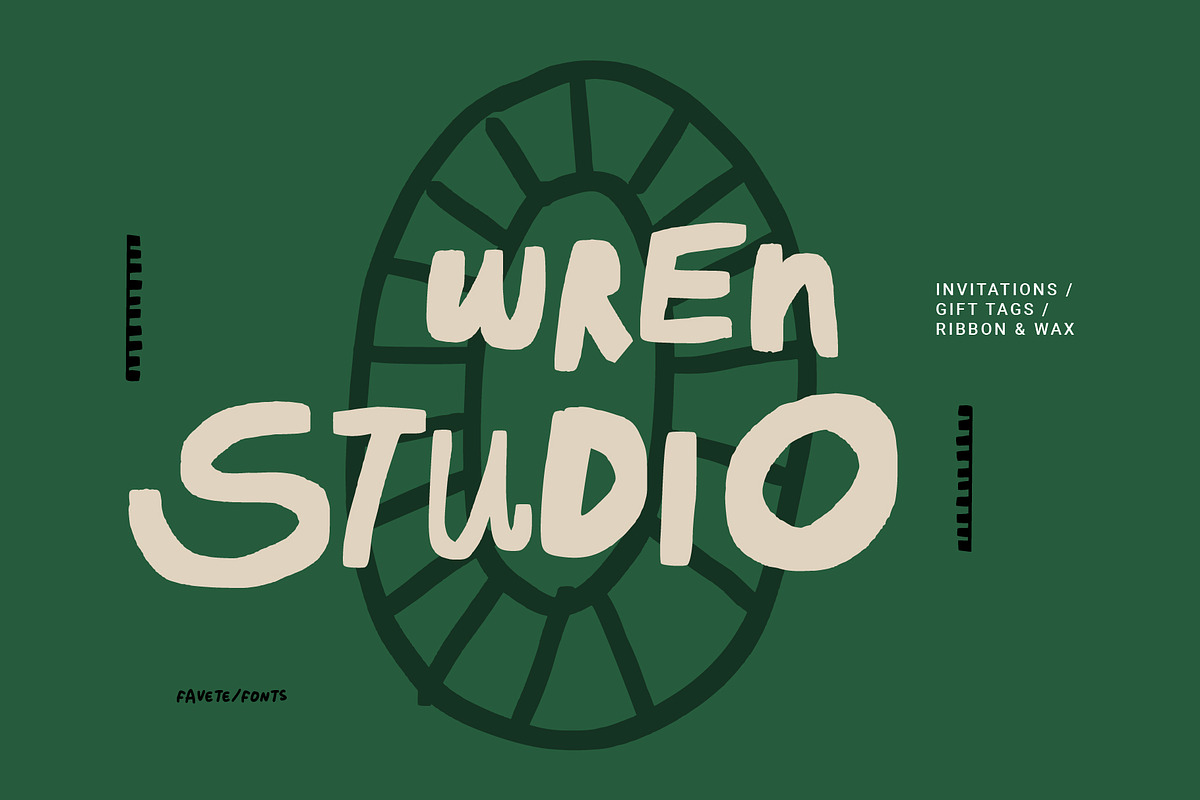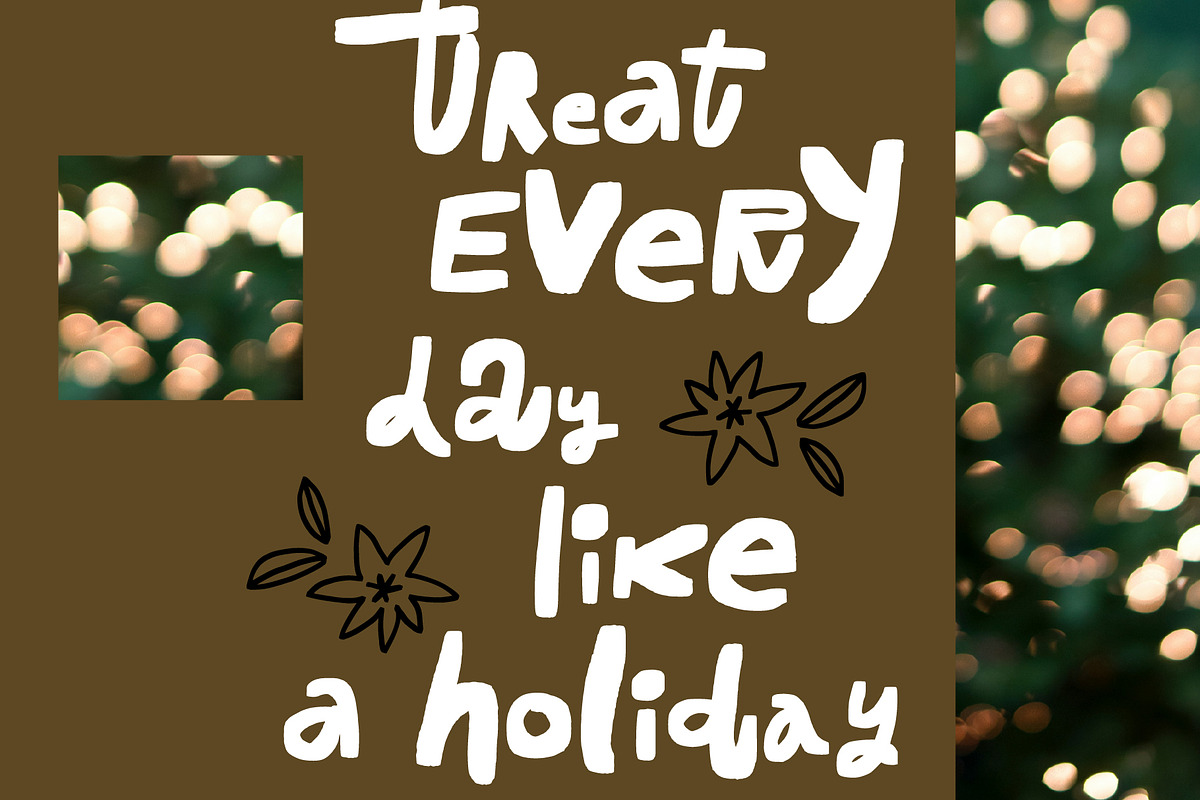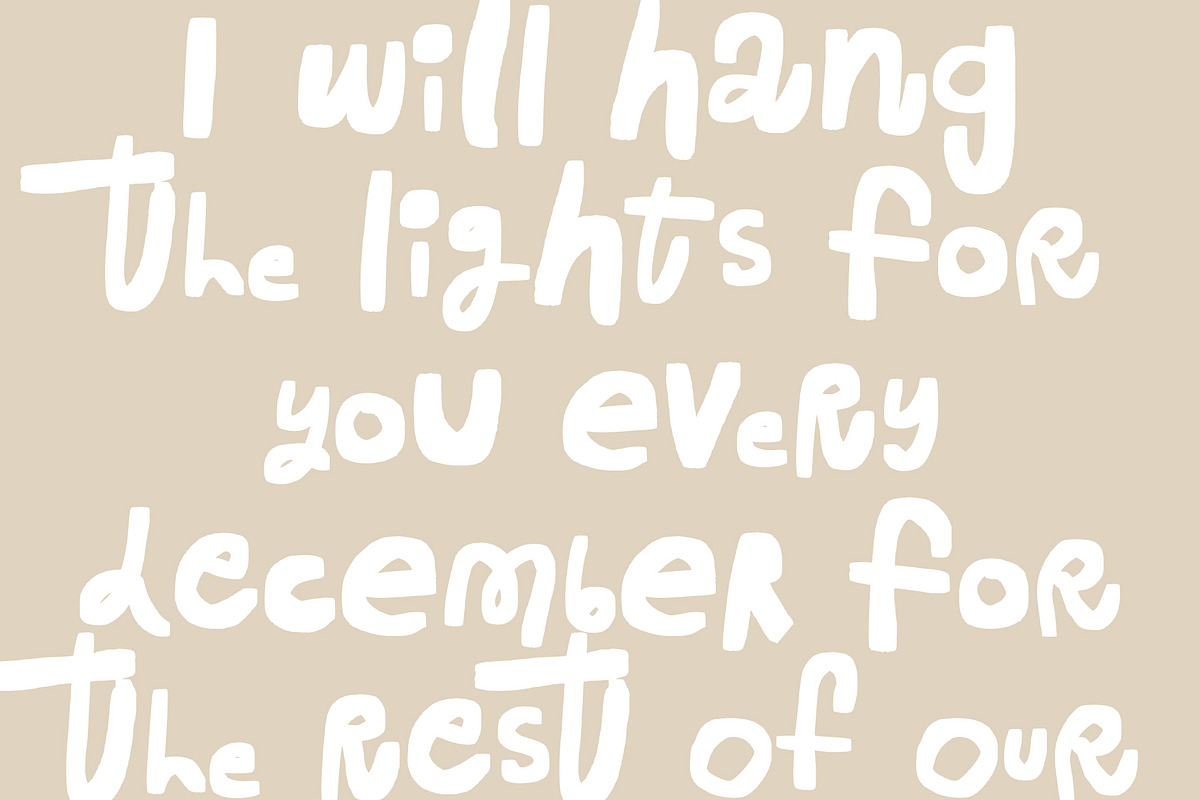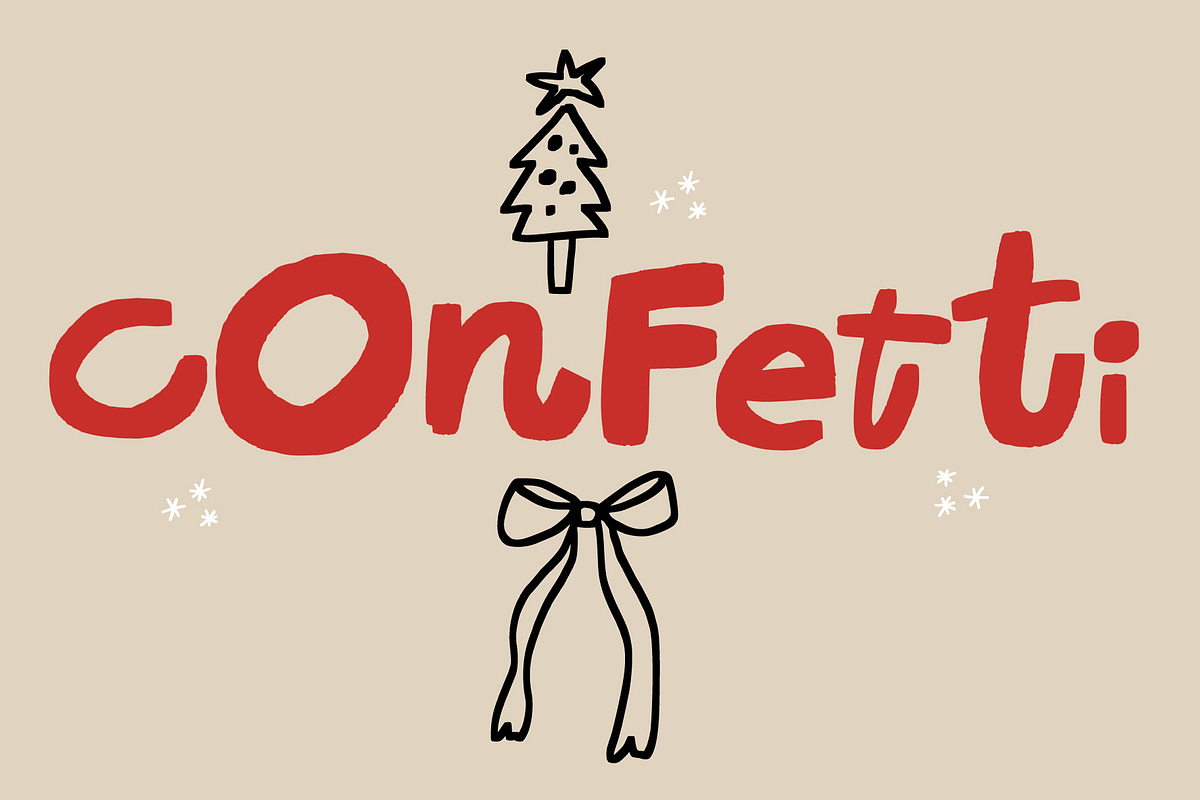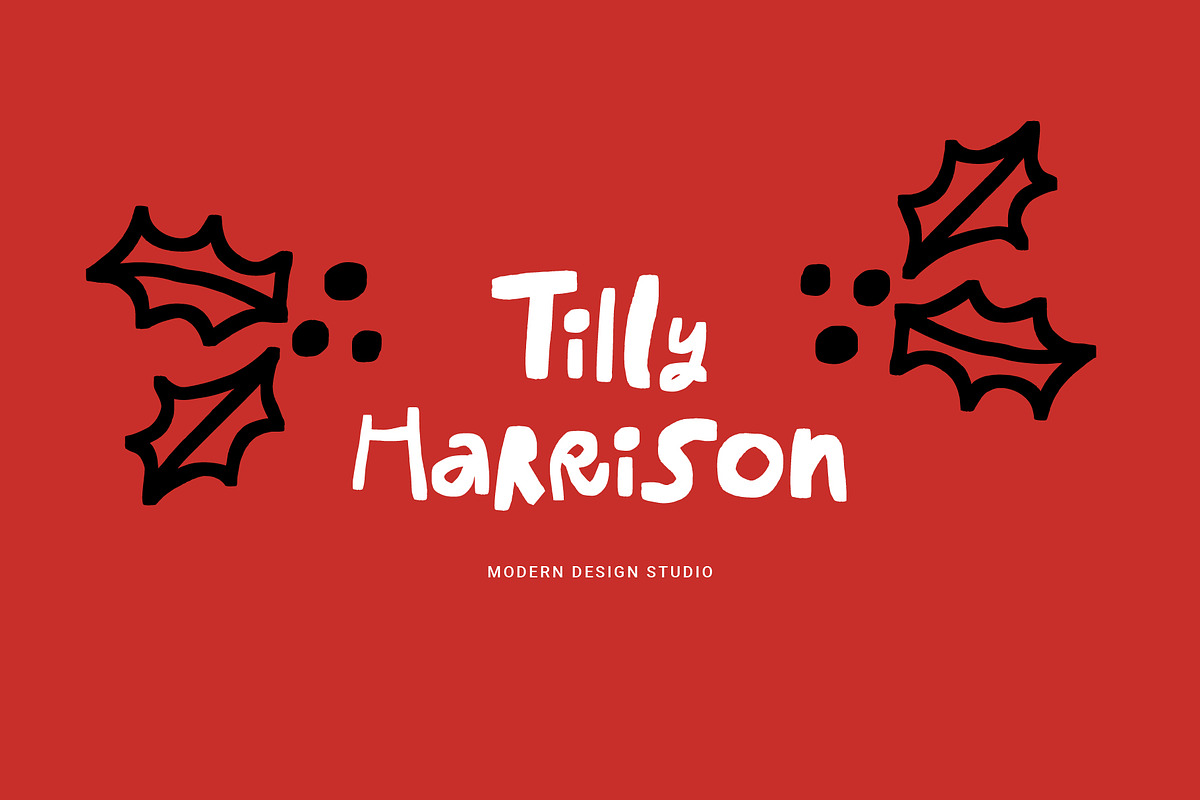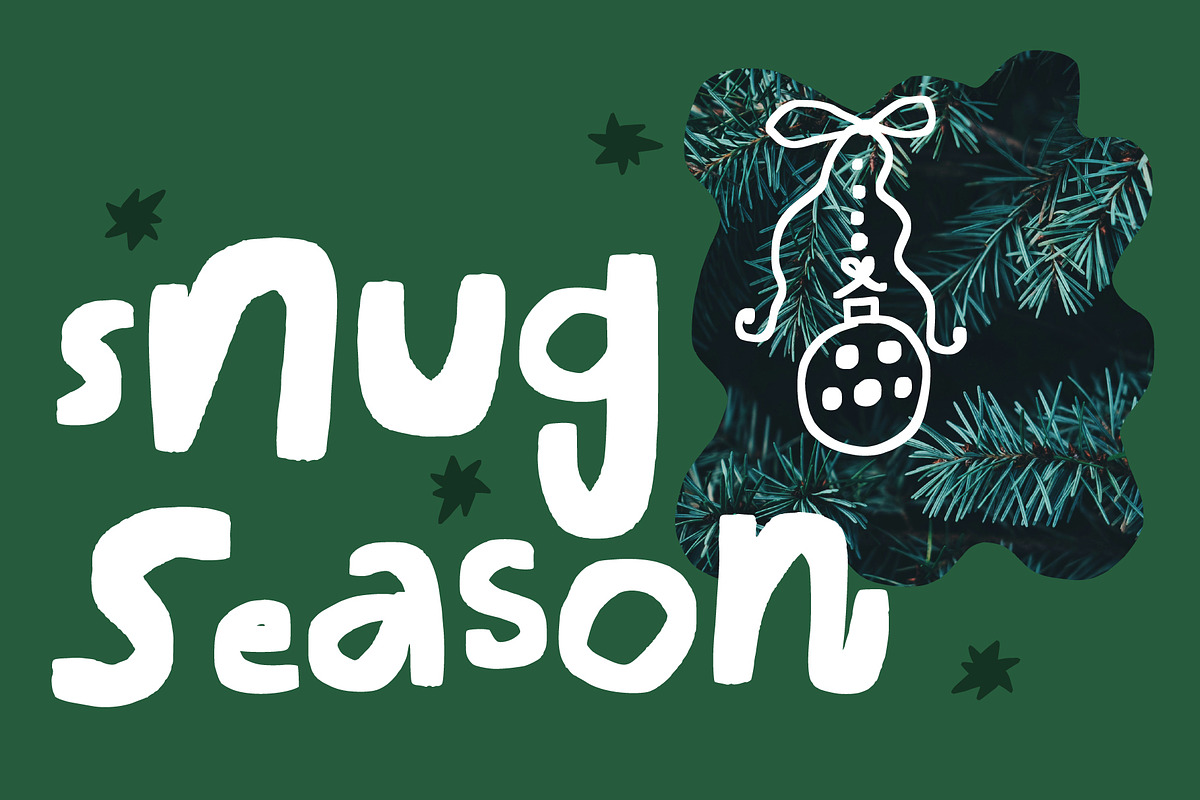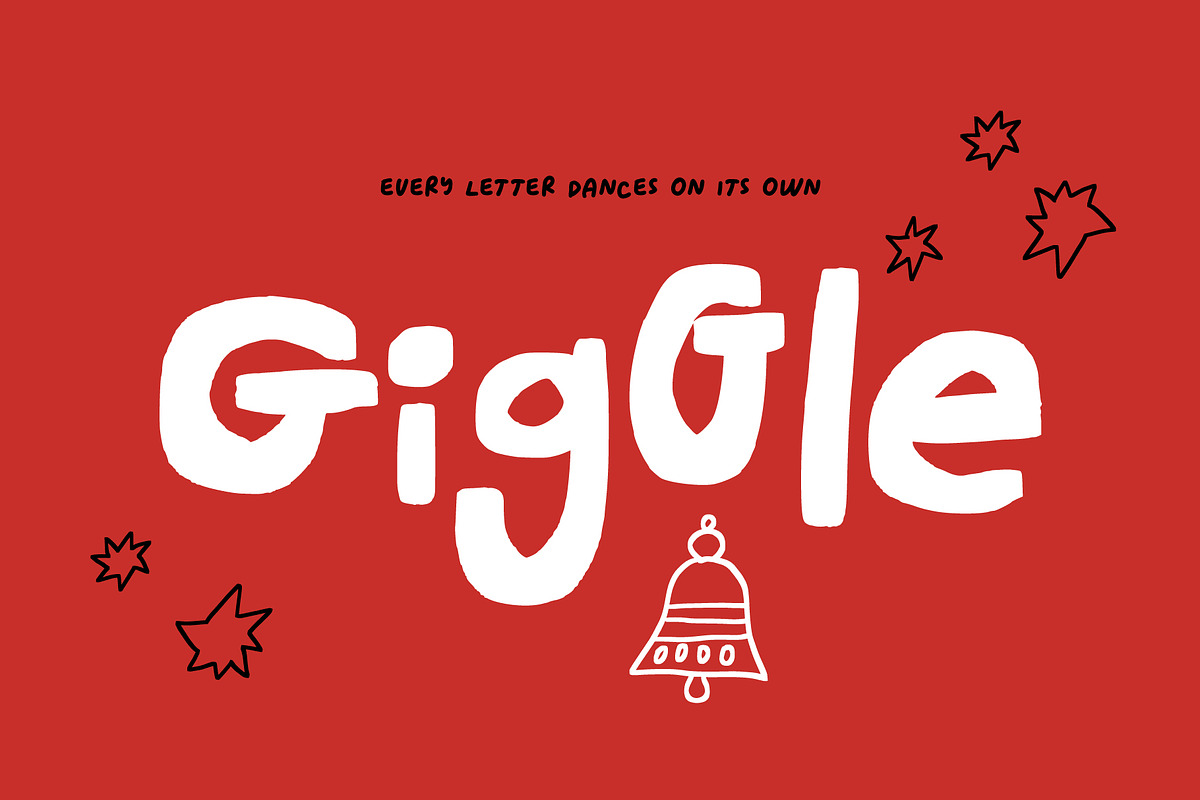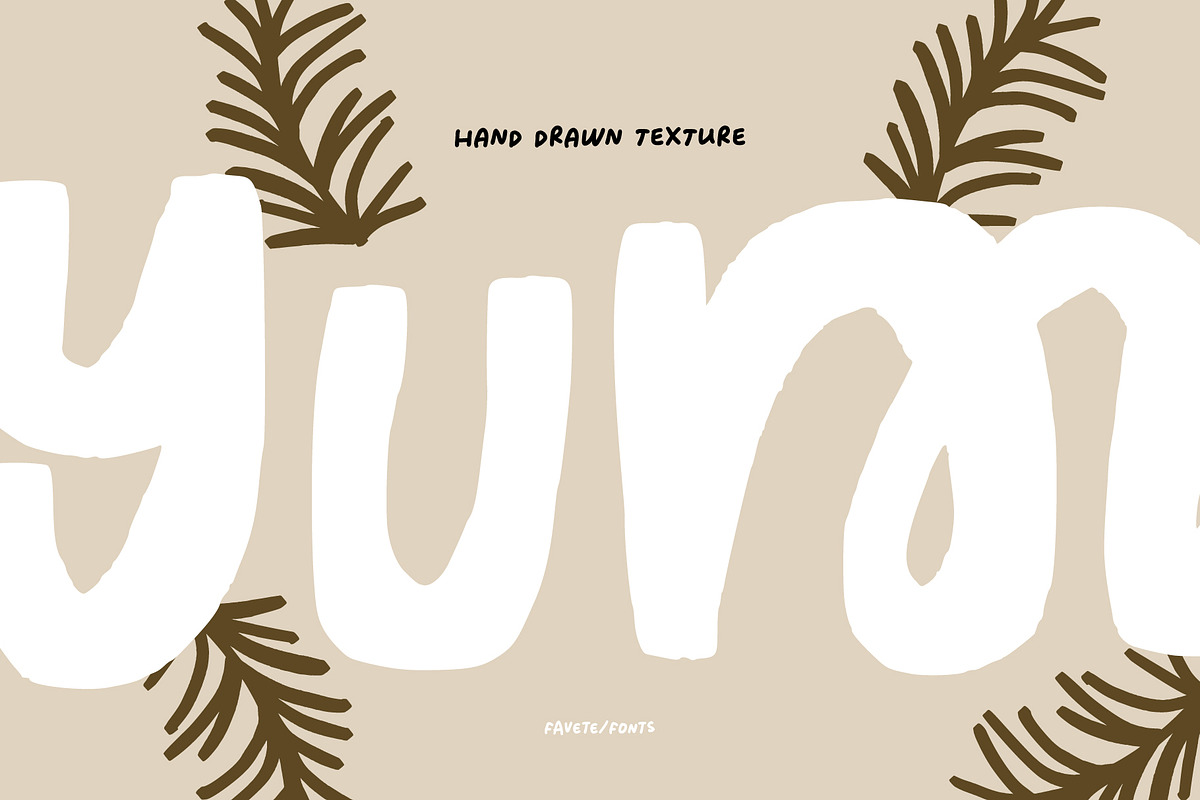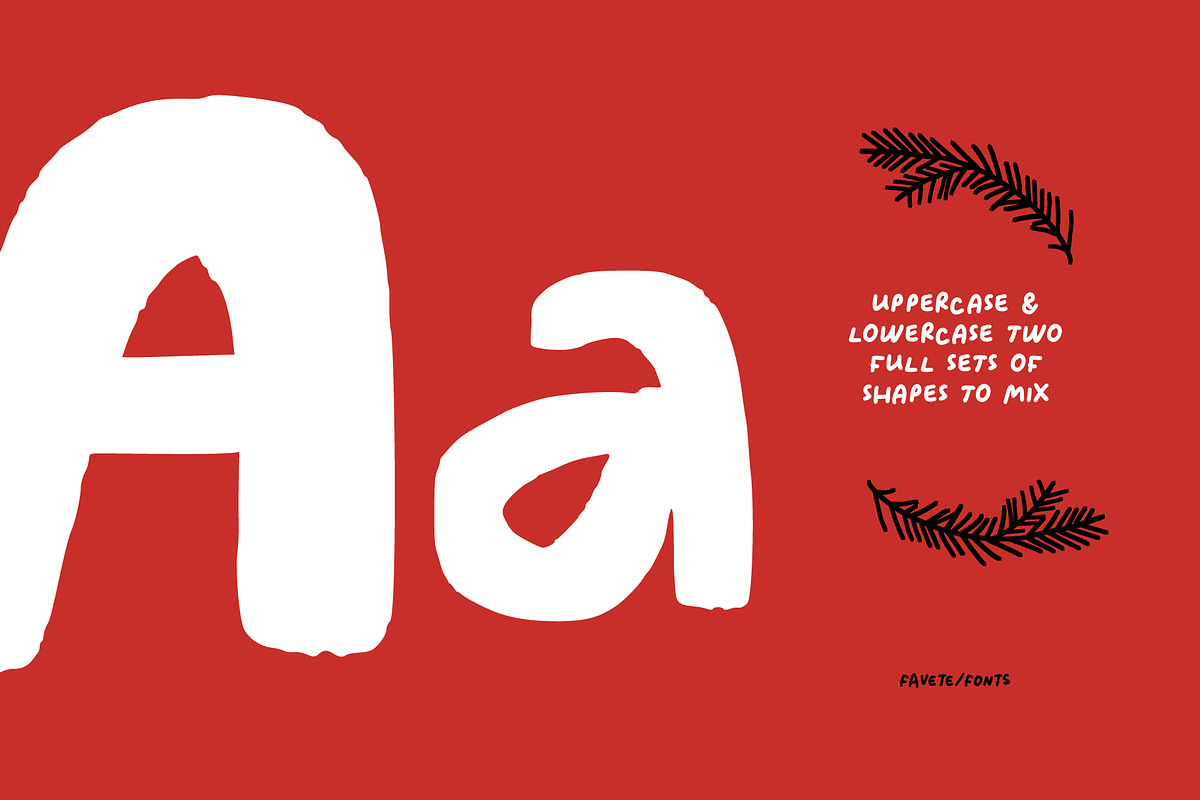
HOLLY JOLLY FONT & 97 ILLUSTRATIONS
HOLLY JOLLY
Playful Hand-Drawn Marker Font with 97 Christmas Illustrations
A bold and cheerful marker font with wobbly hand-cut shapes, thick strokes, and a personality that works all year round - perfect for greeting cards, kids brands, packaging, and festive designs. Letters change as you type thanks to contextual alternates, so every word comes out looking naturally handwritten - no two letters alike.
The set also includes 97 hand-drawn Christmas illustrations - tree branches, ornaments, christmas balls and doodles - so you can build complete holiday designs with one download.
Everything is designed to be flexible and easy to combine - whether you're making a greeting card, gift tag, logo, or social media post. All letters and elements were drawn by hand and carefully prepared for professional design use.
Holly Jolly font – uppercase & lowercase with alternate shapes for every letter, numerals, punctuation, accents & diacritics